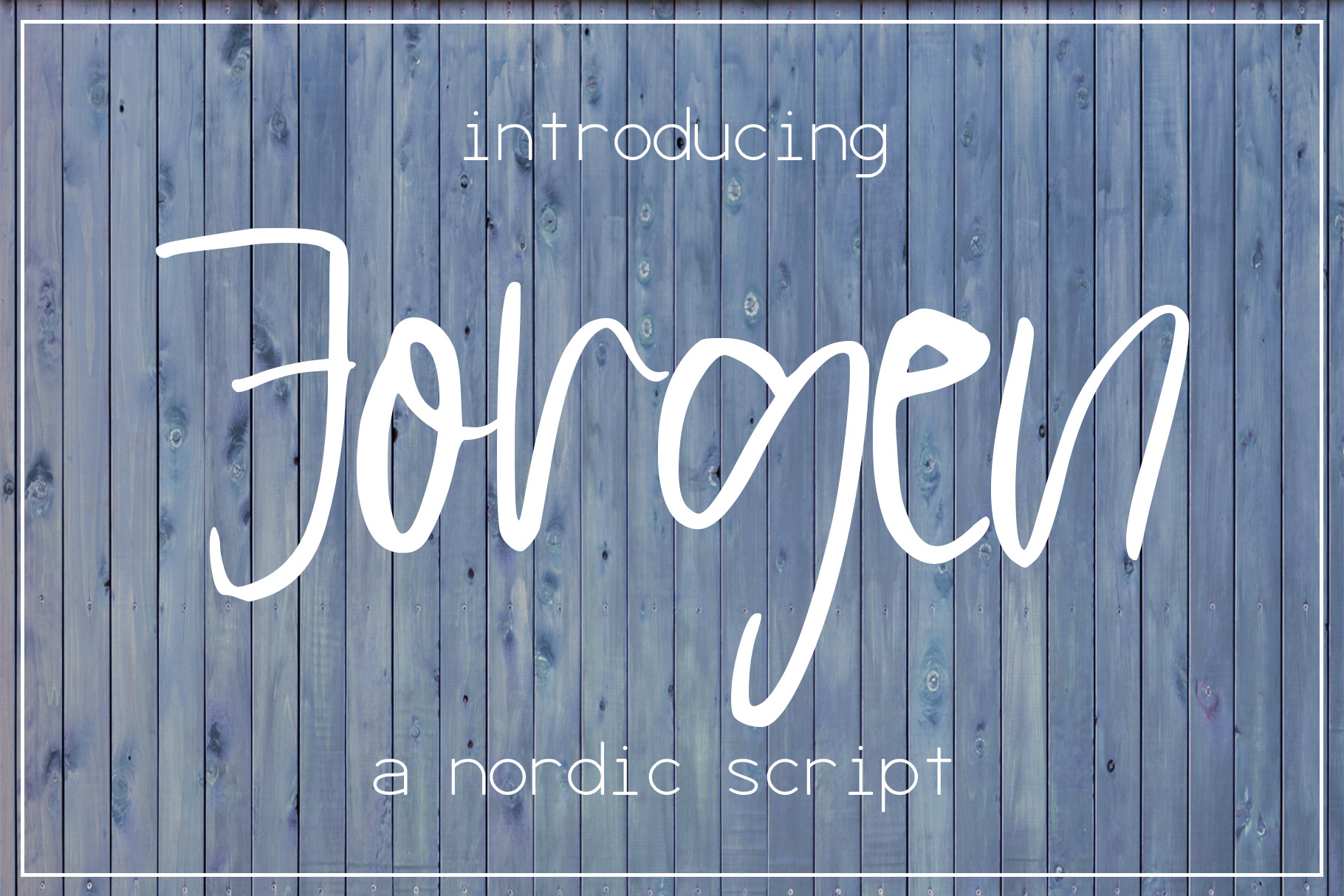
Jorgen Font
Introducing Jorgen, a nordic handwritten script.💗 Perfect for any graphic and logo designs, wedding and birthday invitations. Inspirated by Scandinavia, such a gorgeous nordic place!
Jorgen font contains uppercase & lowercase characters, numbers and punctuations.